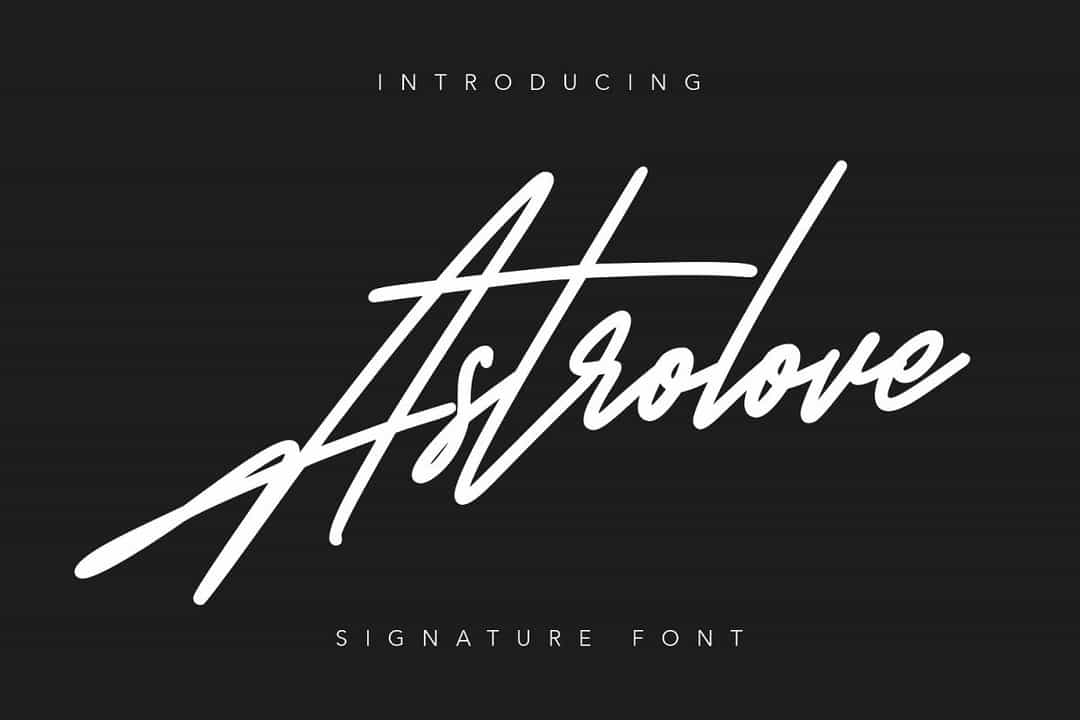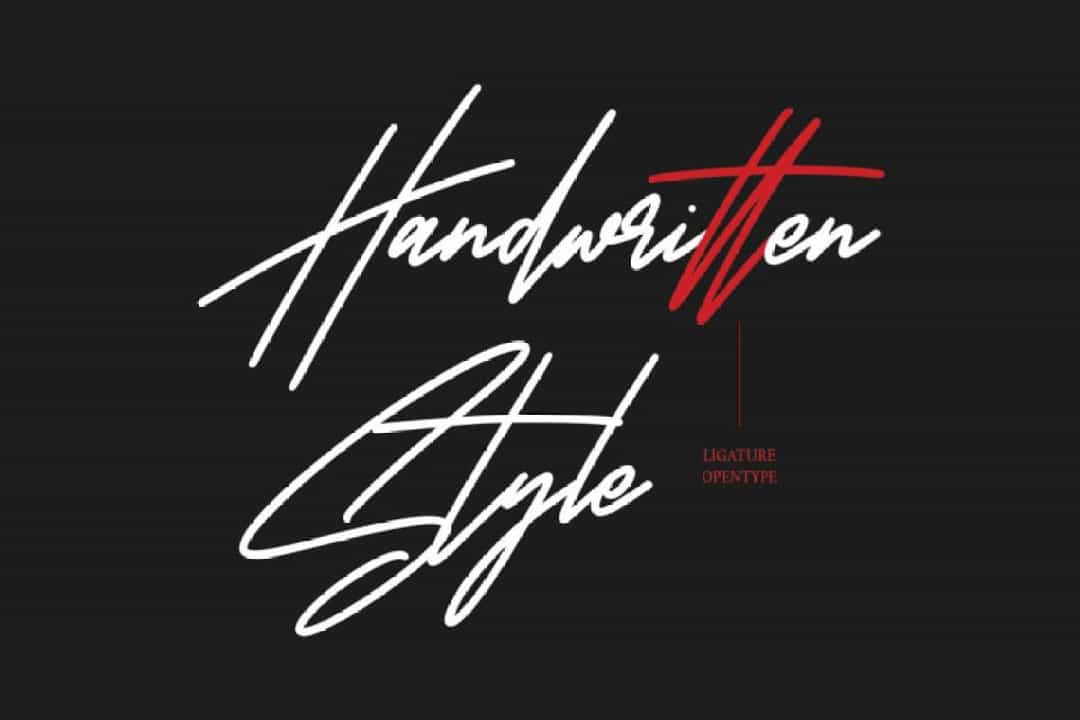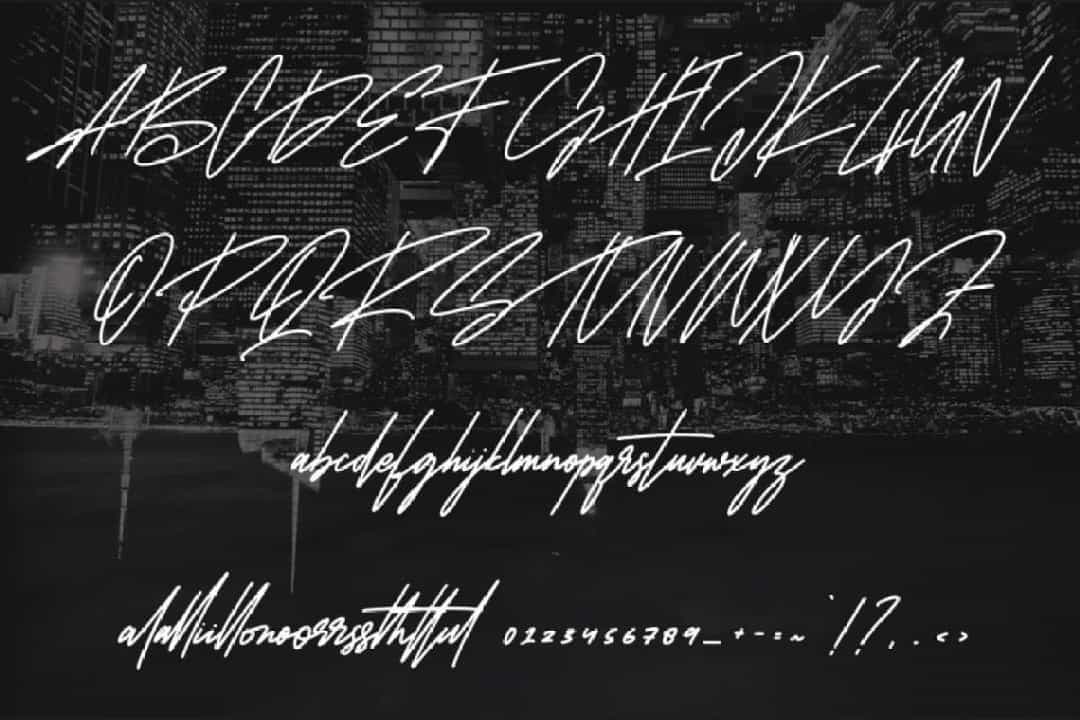
Discover Astrolove Font, part of the Handwritten Script Personal collection—a versatile and unique font perfect for adding a personal touch to your projects. Download it for free and enjoy crafting designs with style, from invitations to social media posts. This font is available exclusively for personal use, giving you the freedom to create without limits. Unlock your creativity with Astrolove Font today!
Your designs will have a unique touch with the “Astrolove Font” which is suitable for use in signatures, stationery, logos and typography quotes, book or magazine covers, headers for websites apparel branding packaging design and much more.